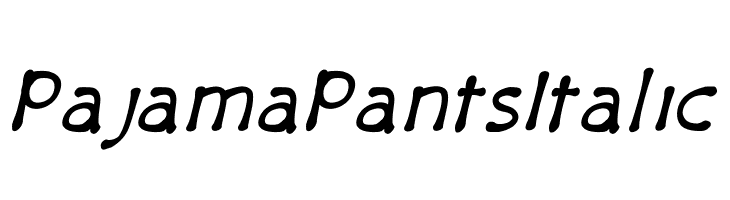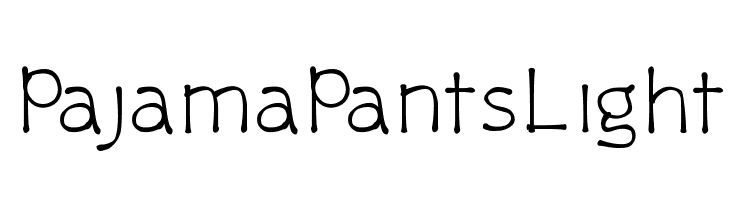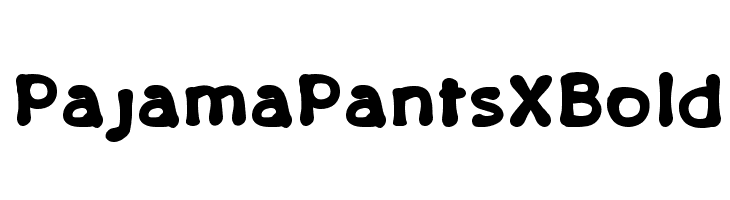
A decorative and abstract font with geometric and futuristic elements.
A bold, 3D hollow font with a modern, geometric style.
A bold, playful font with a bubbly, three-dimensional appearance.
A bold, modern font with strong geometric influences and uniform strokes.
A modern, geometric font with rounded edges and balanced proportions.
An elegant script font with fluid, interconnected strokes and a handwritten style.
A modern, flowing cursive font with bold, expressive characters.
A dynamic and elegant script font with fluid, connected letterforms.
A bold, angular font with a modern, industrial aesthetic.
A whimsical and artistic font with characters resembling abstract faces.
A delicate, elegant handwritten font with thin, flowing strokes.
A bold, energetic brush-style font with a raw, artistic feel.
A geometric, multi-line decorative font with a modern, futuristic style.
A geometric, angular font with a futuristic and bold design.
A futuristic, angular font with sharp lines and a geometric style.
A bold, geometric font with sharp angles and a futuristic style.
A bold, handwritten-style font with dynamic, slanted characters.
A playful, handwritten-style font with bold, consistent strokes.
A geometric, hollow font with parallel lines and angular shapes.
A futuristic, hollow font with geometric and angular designs.
A geometric, angular font with a futuristic and dynamic design.
A modern, geometric font with parallel line motifs and consistent stroke width.
A modern, geometric sans-serif font with clean lines and uniform strokes.
A modern sans-serif font with a subtle italic slant, offering a sleek and dynamic look.
A clean, minimalist font with thin strokes and rounded edges.
A thin, modern, and slightly italicized font with a clean, minimalist design.